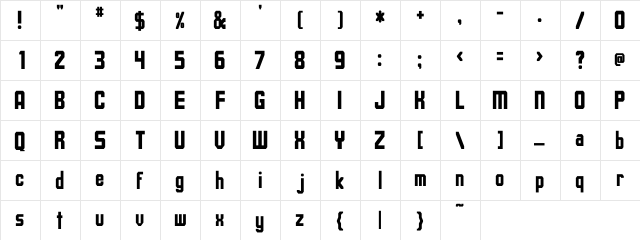
Upsilon Cn Bold Regular
Design Context for Upsilon Cn Bold Typeface
Upsilon Cn Bold is a composed and adaptable typeface that performs quietly and consistently across a wide range of design contexts. The heavy weight commands attention and anchors typographic hierarchies.